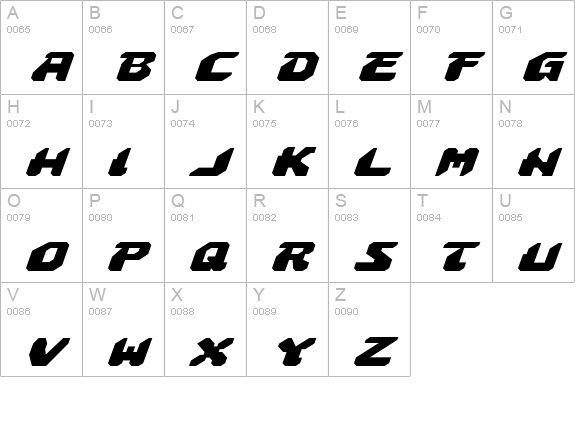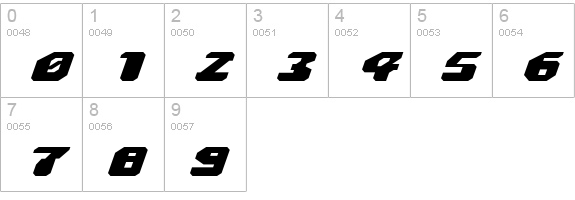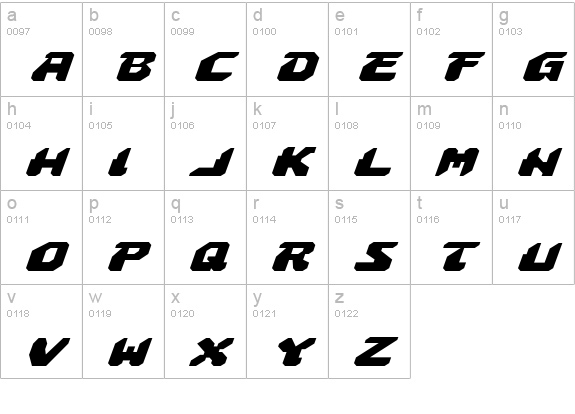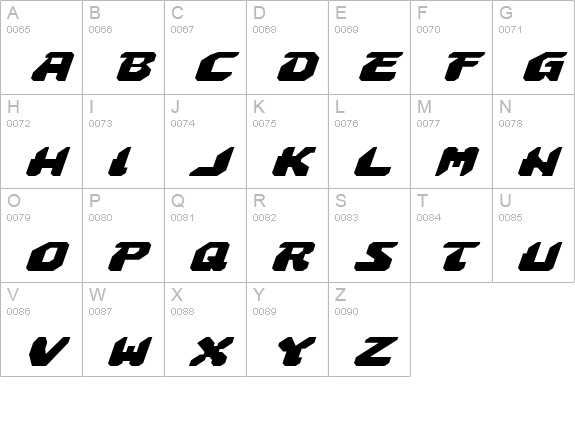
Astropolis Expanded Italic is a distinctive, extended-width, italic variant in the Astropolis typeface family \xE2\x80\x94 well suited to design and typography projects.
Astropolis Expanded Italic is a sleek and modern typeface that exudes sophistication and elegance. Its elongated and italicized design adds a touch of flair to any project, making it perfect for headings, quotes, and other design elements that need to stand out. The sharp angles and clean lines of this font give it a contemporary feel that is both eye-catching and easy to read. What sets Astropolis Expanded Italic apart is that it is not only stylish and versatile but also free for personal and commercial use. This means that you can elevate your designs without breaking the bank. You can easily download Astropolis Expanded Italic for free at FontsMarket.com, where you'll find a wide selection of high-quality fonts to enhance your creative projects. Don't miss out on the opportunity to add this stunning typeface to your font collection today!